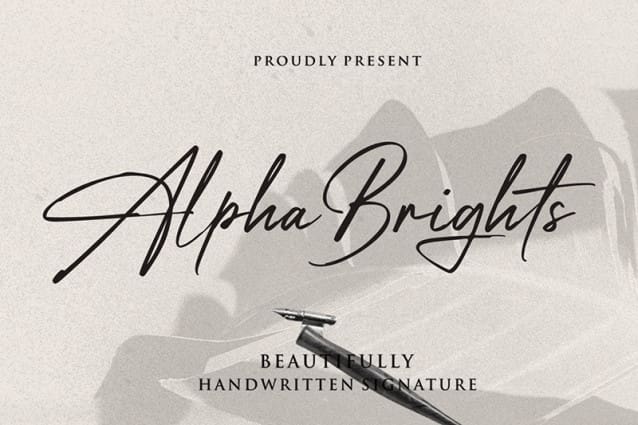
Alpha Brights Font
Alpha Brights Font is a simple and friendly handwritten font. Its natural and unique style makes it incredibly fitting to a large pool of designs. The only limit is your imagination!